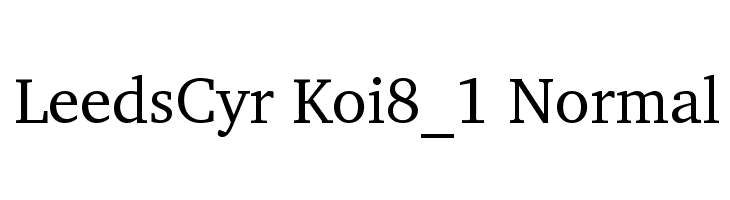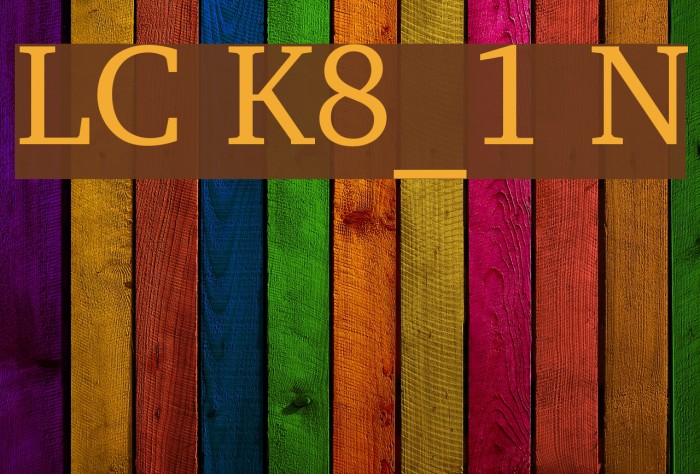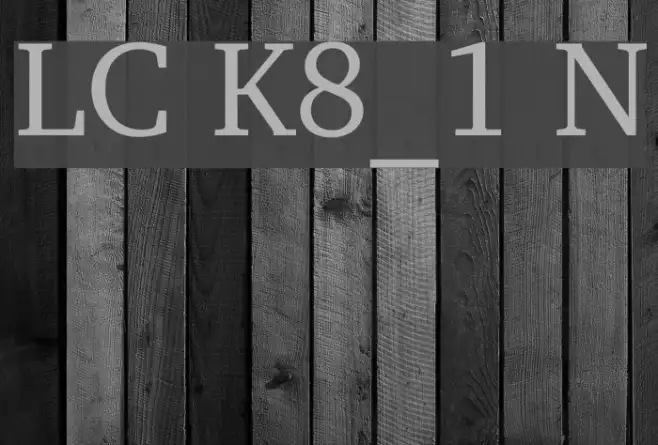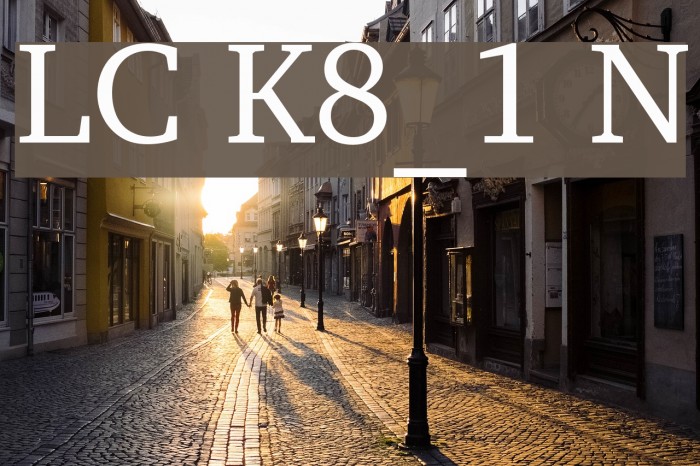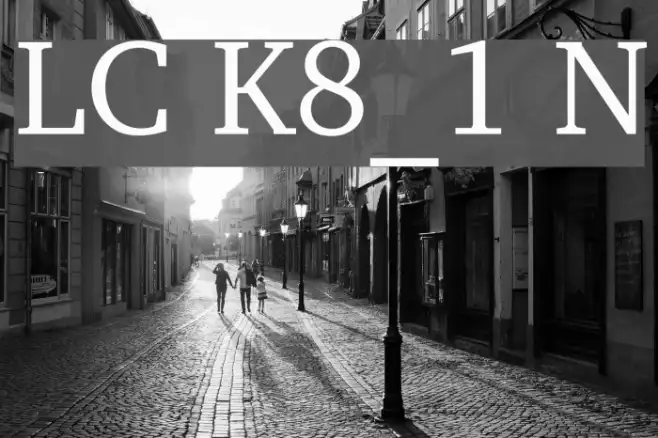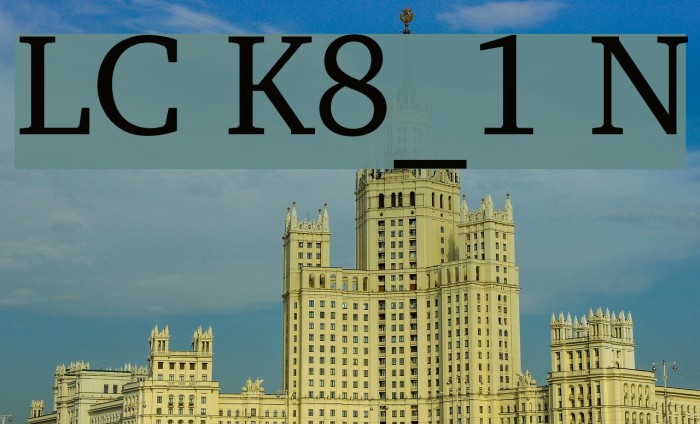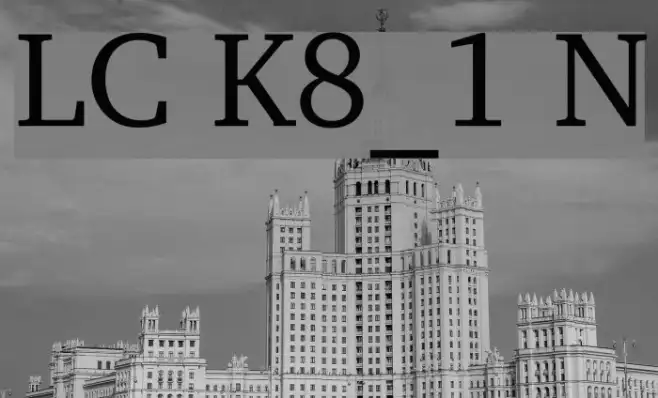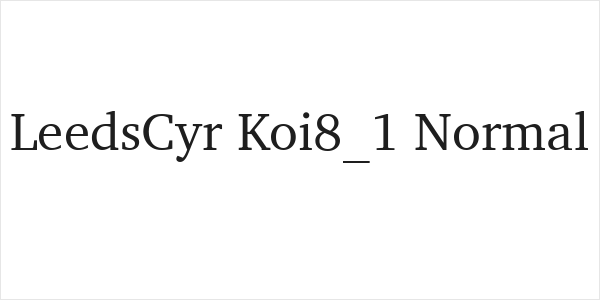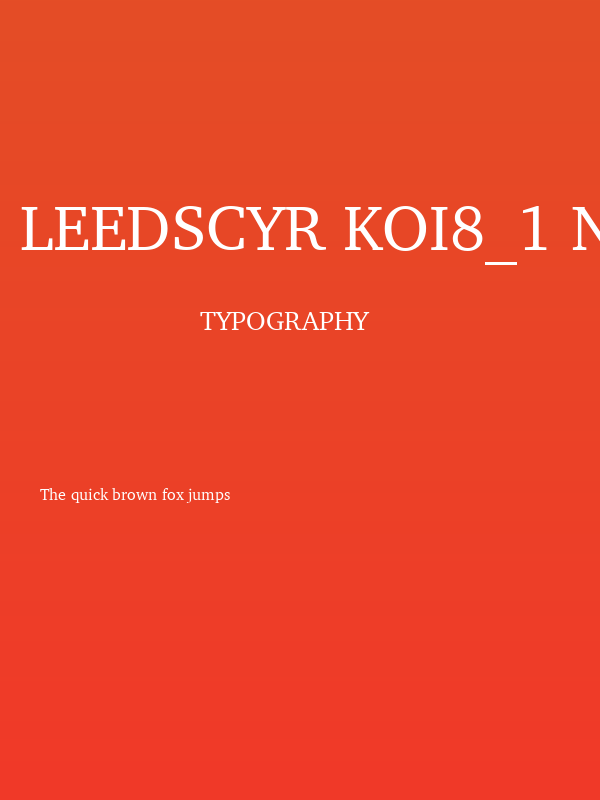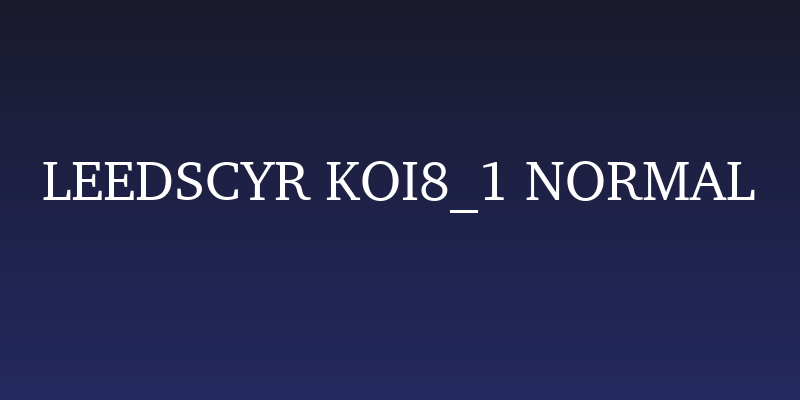
LeedsCyr Koi8_1 Normal Font
LeedsCyr Koi8_1 Normal Description
This font exhibits a classic serif style with a balanced and elegant appearance. The uppercase letters are bold and authoritative, while the lowercase letters maintain a harmonious flow. The numerals are clear and distinct, making them easily readable. Special characters are well-integrated, maintaining the overall aesthetic. The font's design is suitable for conveying a sense of tradition and reliability, making it ideal for formal documents and professional settings. Its clean lines and moderate contrast in stroke thickness contribute to its legibility and timeless appeal.